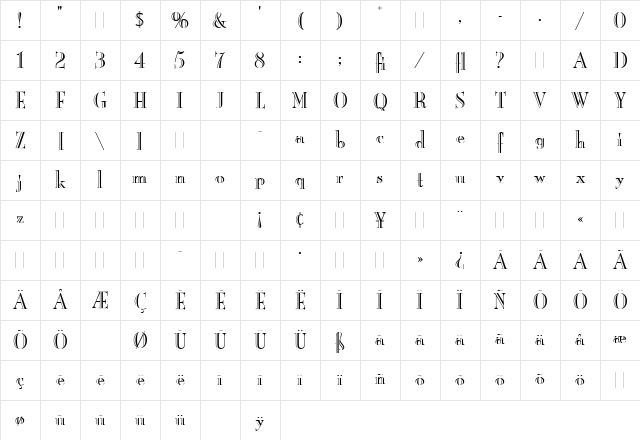
Complete Burlington LET Plain glyph index. Displaying only characters natively supported by Burlington LET Plain font.
Burlington LET is a composed and adaptable typeface that performs quietly and consistently across a wide range of design contexts.